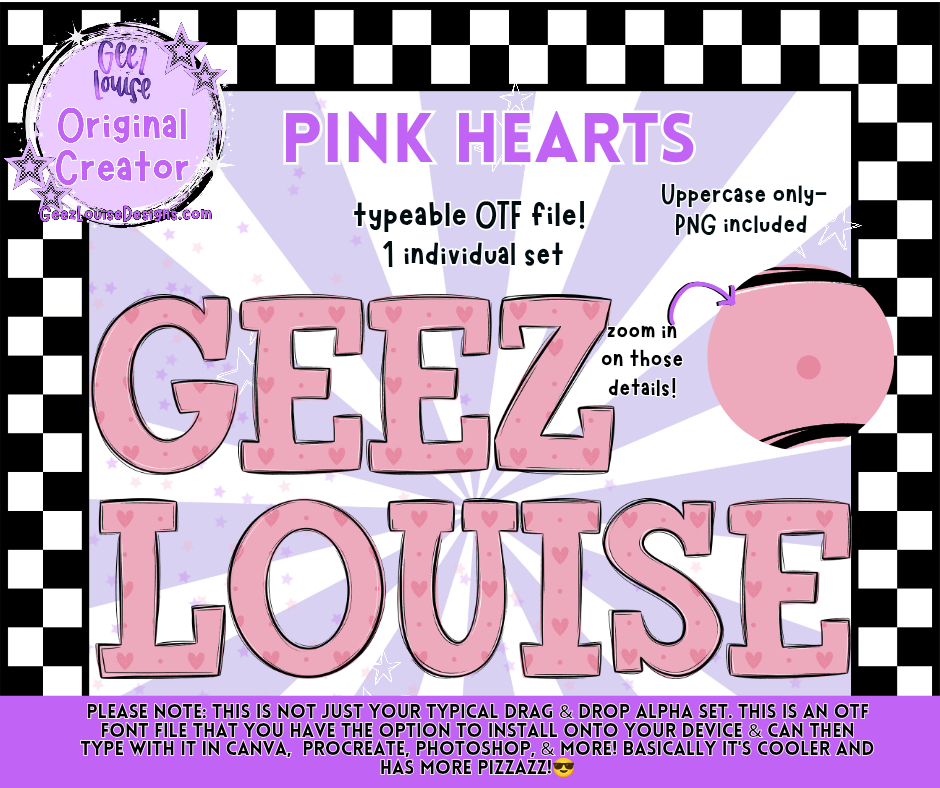
Pink Hearts (OTF Font + PNGs)
Soft chaos meets candy-core with Pink Hearts, the alpha that turns heartbreak into art. This uppercase-only OTF font features a playful pink heart pattern that’s perfect for anti-Valentine’s drops, emotional merch, and pastel rebellion.
Why it slaps: This isn’t just cute—it’s chaos-coded. Installable, typeable, and emotionally unhinged in the best way. Zoom in on those hearts… they’re whispering secrets.